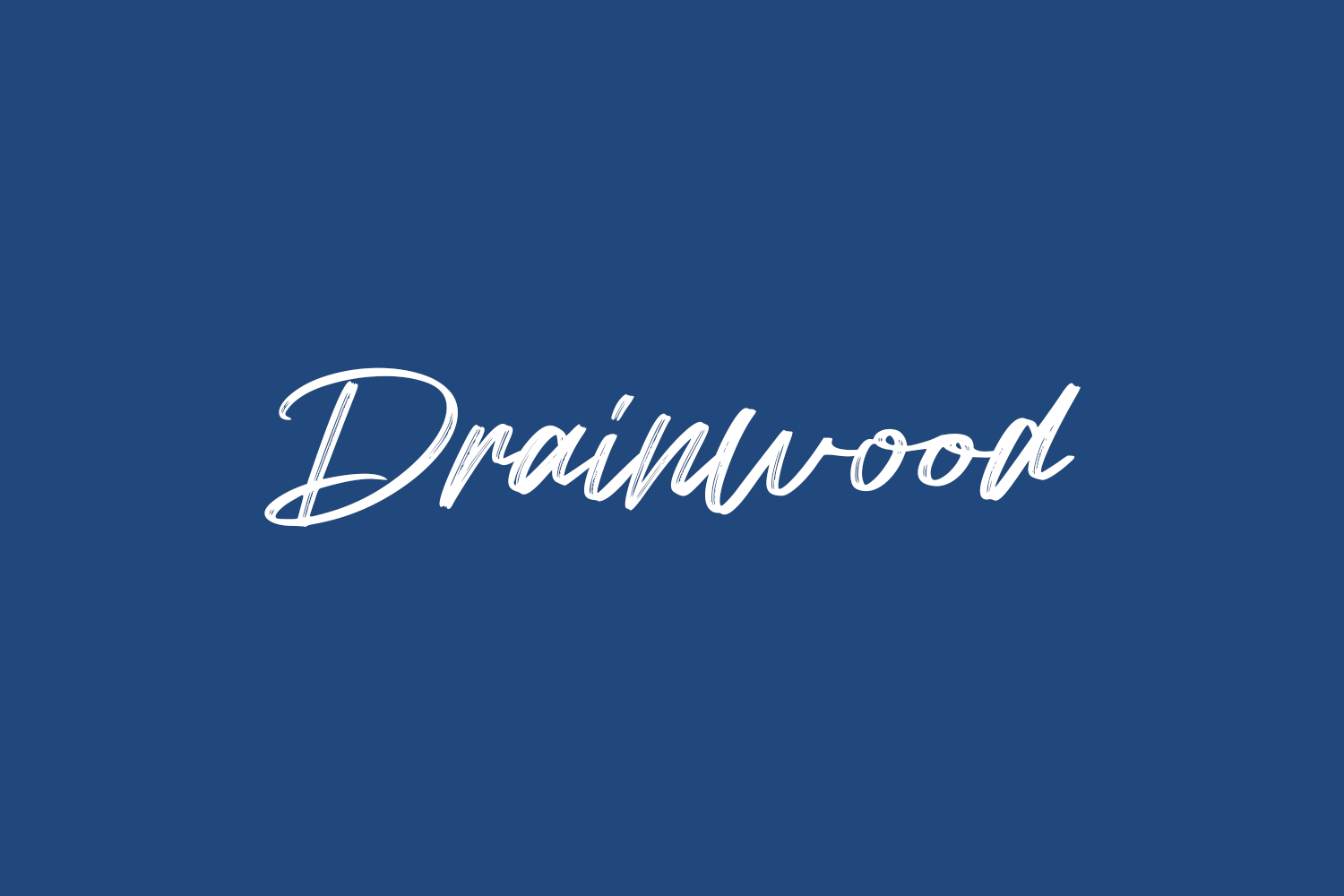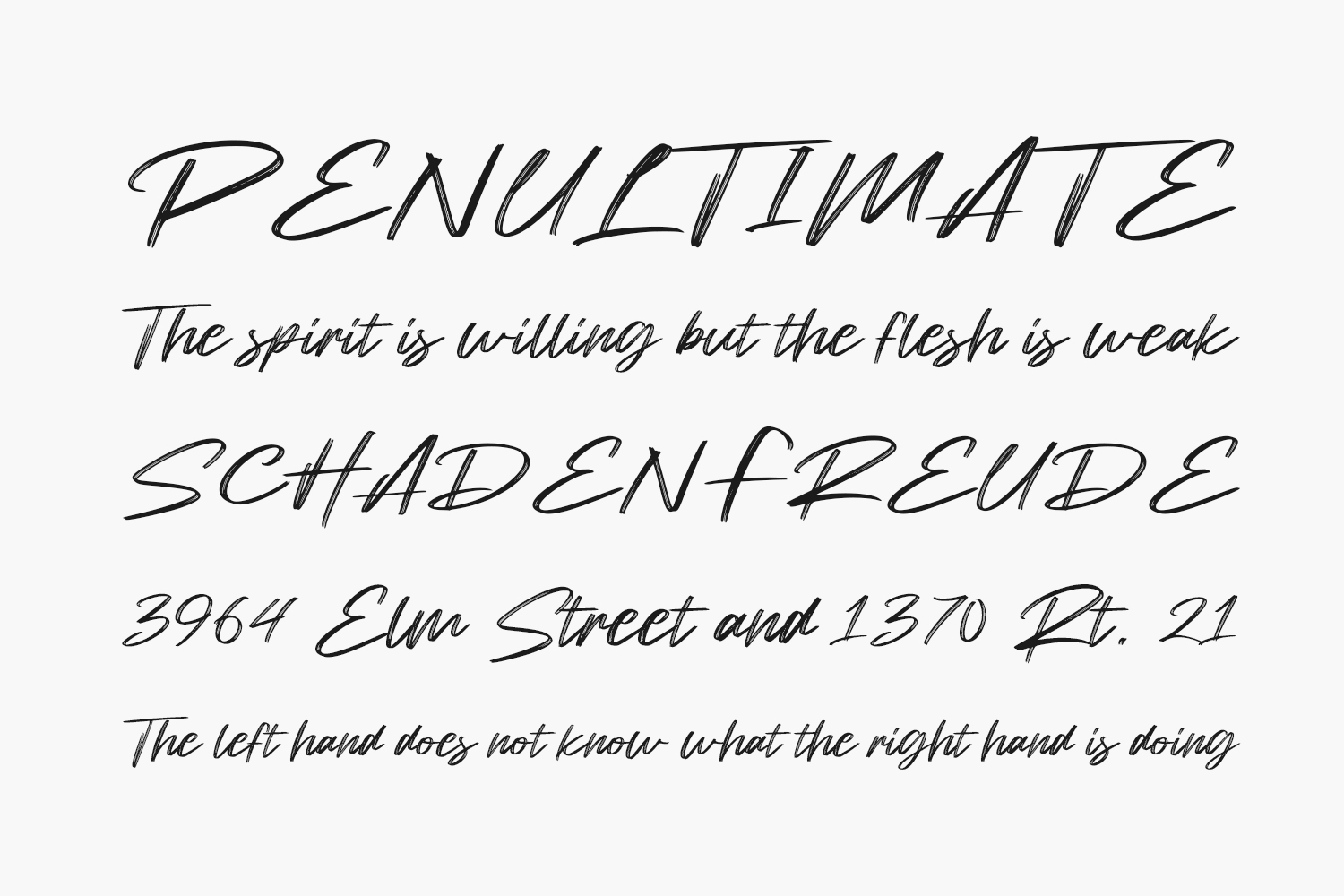
Drainwood Free Font is a beautiful, cursive, and brushed script font. Whether you’re using it for crafting, digital designing, presentations, or greeting card making, it’s perfect. Drainwood Free Font was designed by Fontherapy and is free for personal use only. Please purchase the full version for commercial use.